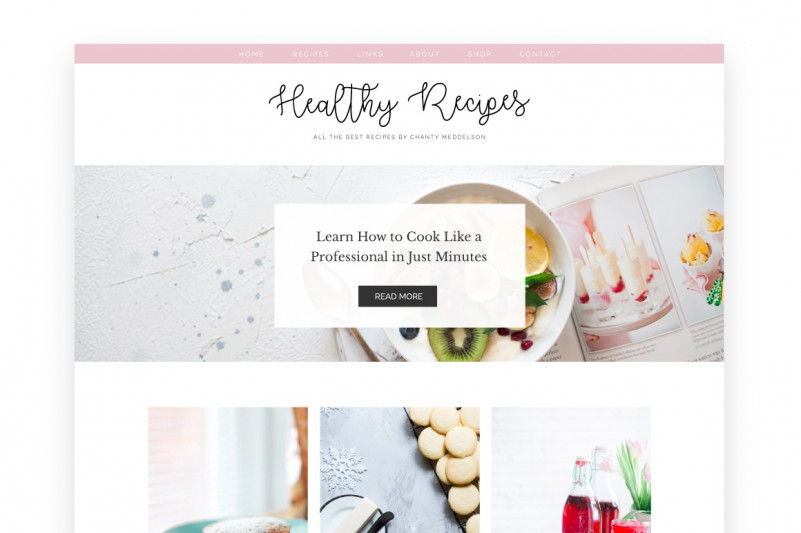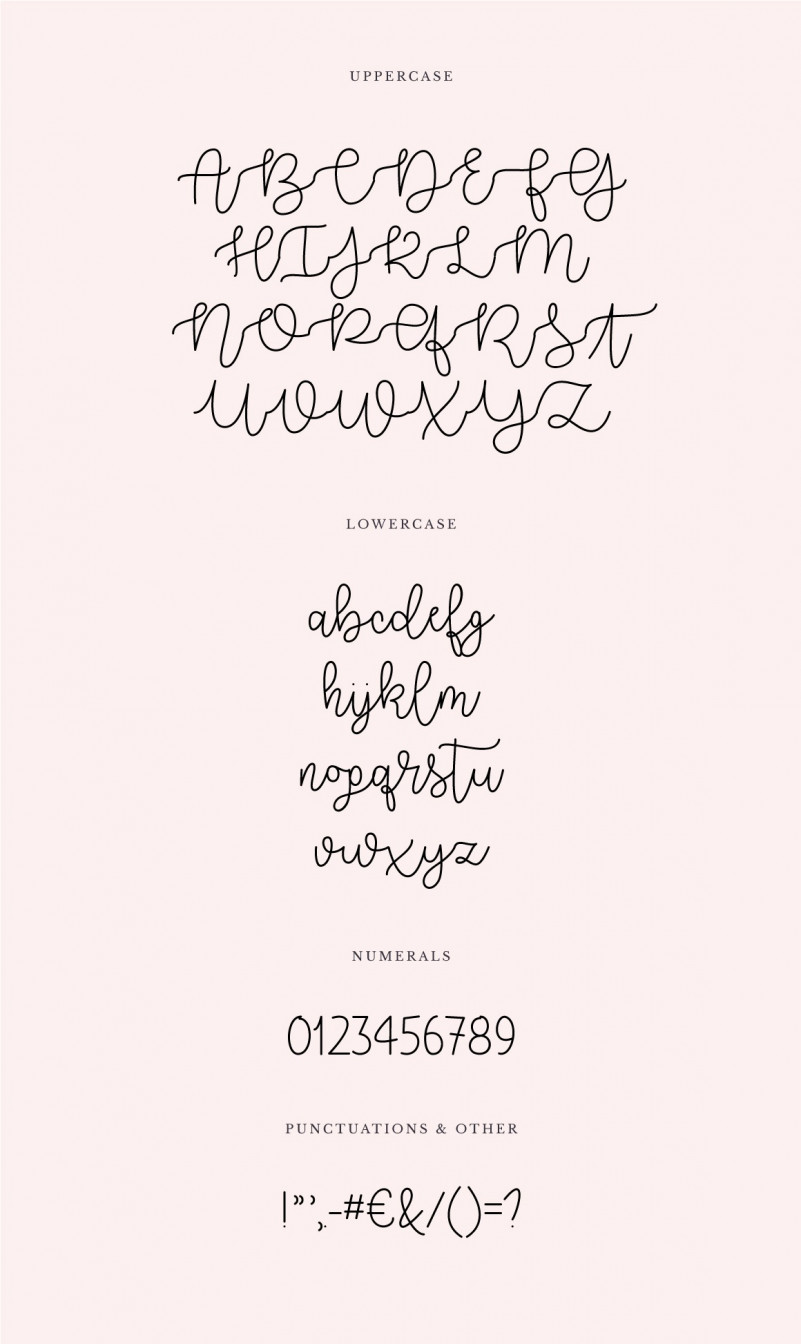
Catcalling Script Font
Catcalling Font is a classic Calligraphy script font. The style of this font are elegant, luxury, glamour, modern and sophisticated calligraphy handwriting font.